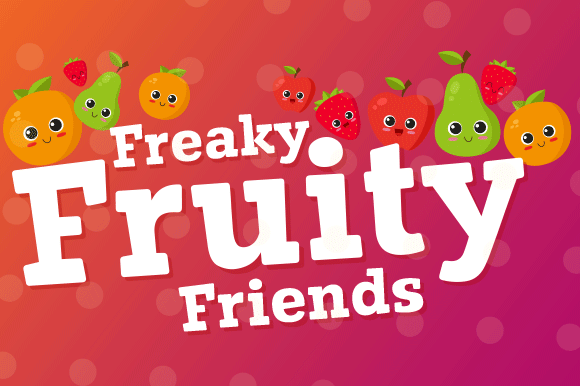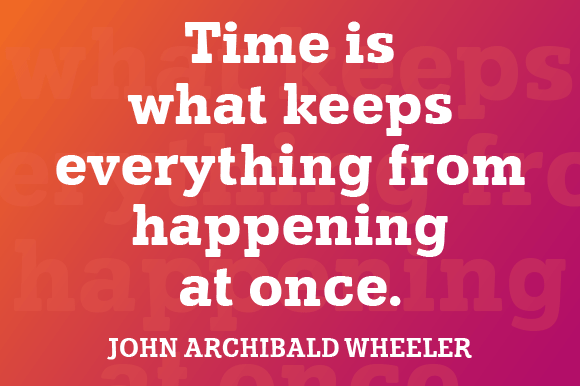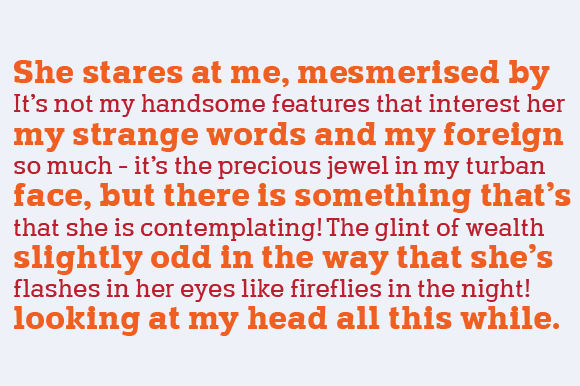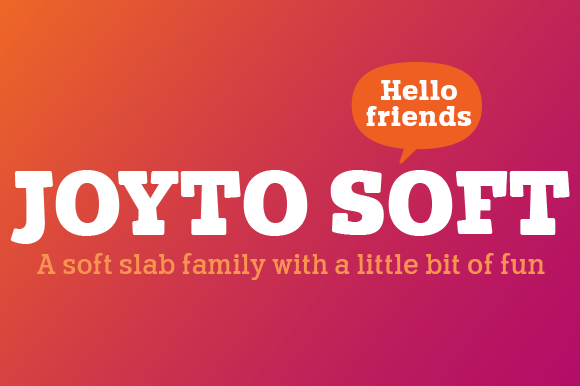
Introduction to Joyto Soft Font
Joyto Soft is a slab serif family of five weights.
With soft edges and an uneven thickness, it has a quirky, warm and fun character while retaining legibility It is well suited for display, packaging, restaurant menus, children’s products & books and much more.